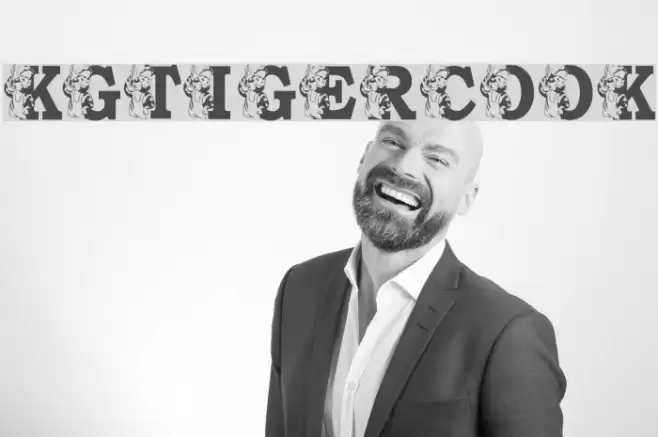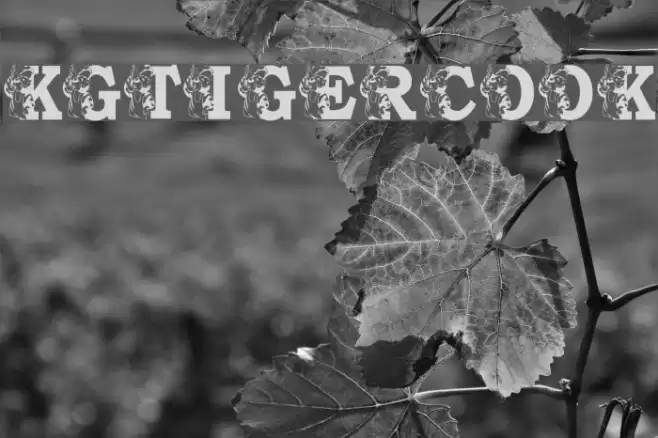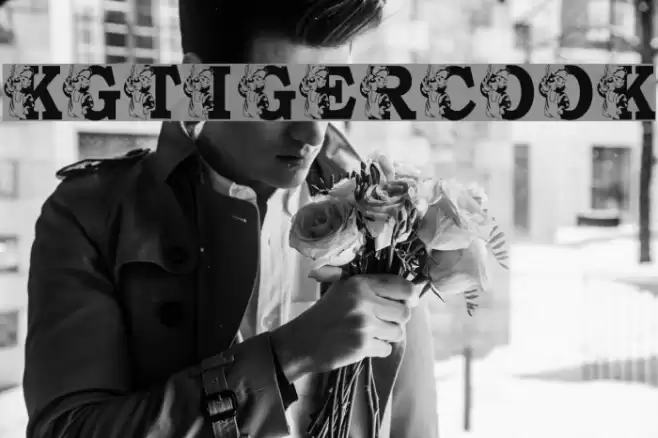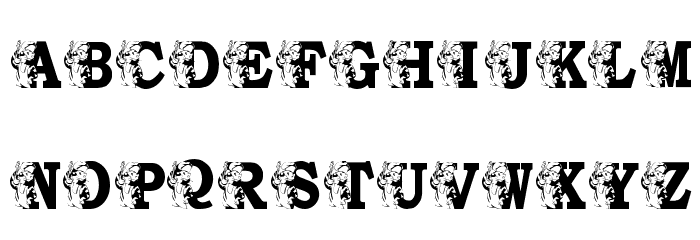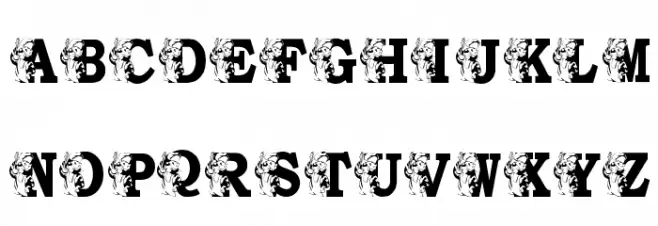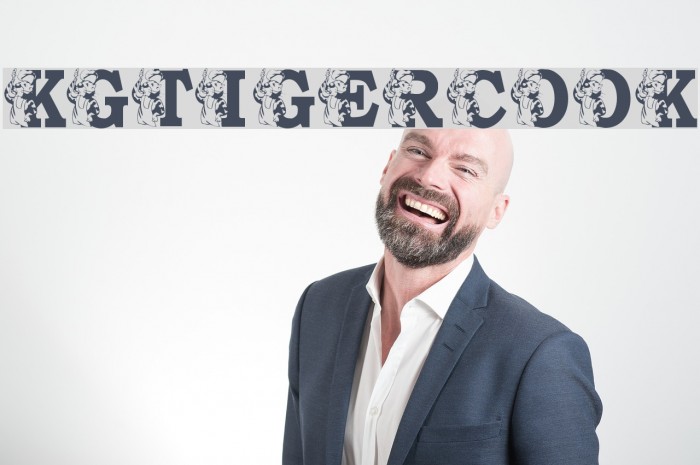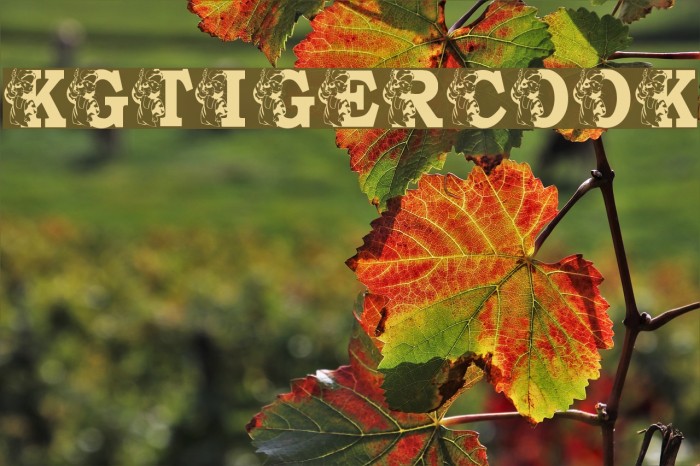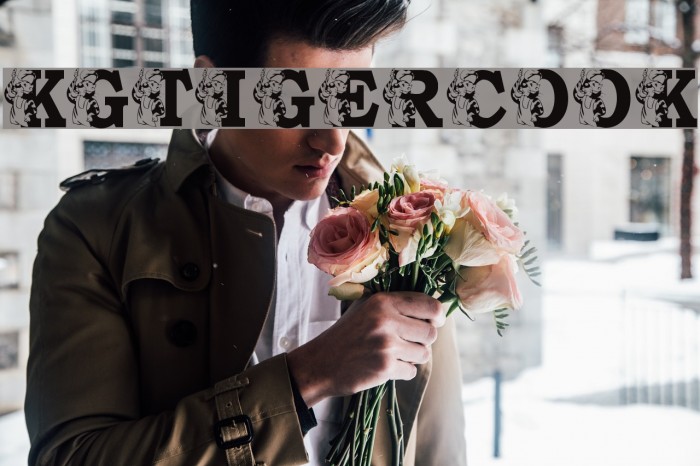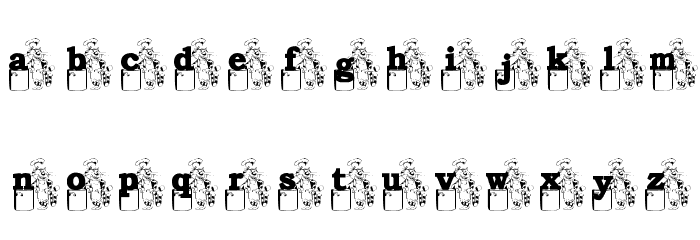
KGTIGERCOOK Font
KGTIGERCOOK Description
This font features a bold and decorative style with intricate tiger illustrations integrated into each character. The uppercase letters are robust and commanding, while the lowercase letters maintain the same decorative elements, creating a cohesive and visually striking appearance. The unique design of incorporating animal motifs makes it stand out, offering a playful yet sophisticated look. The font is perfect for projects that require a touch of creativity and boldness, such as posters, branding, or themed events. Its distinct style ensures that it captures attention and leaves a memorable impression.
A bold, decorative font with integrated tiger illustrations in each character from Uncategorized fonts.
- Proposed Projects: Ideal for posters, branding, themed events, and creative projects requiring a bold statement.